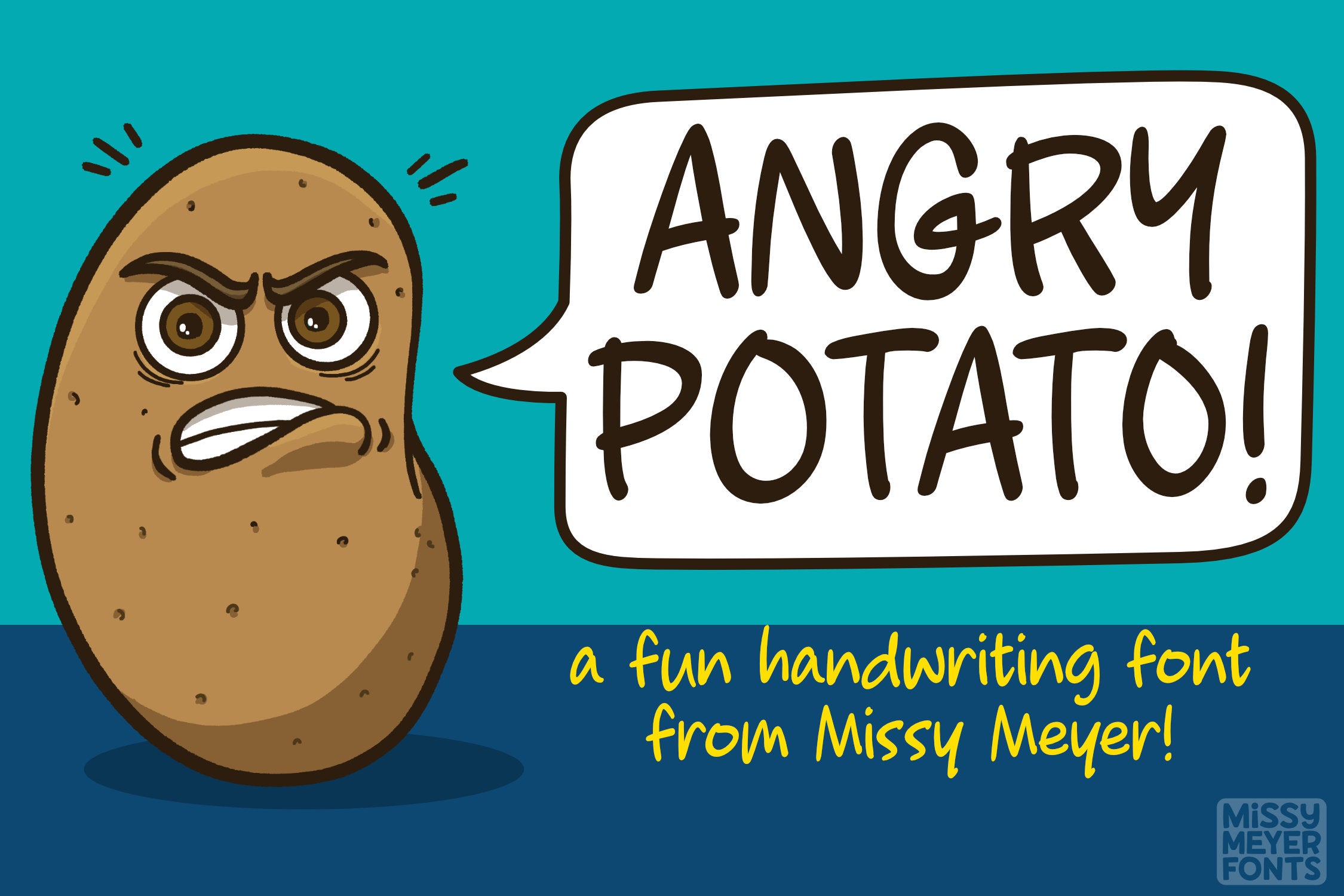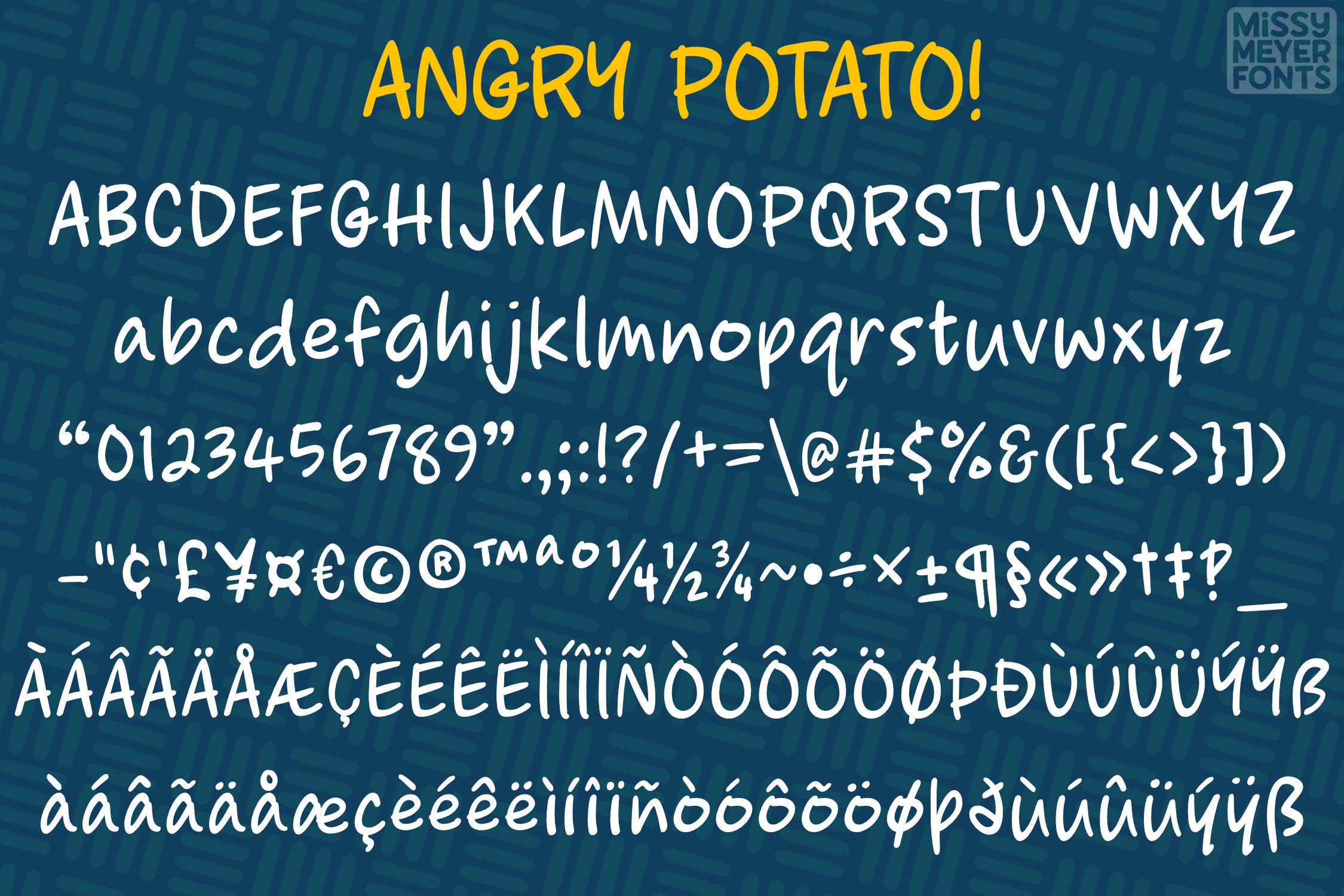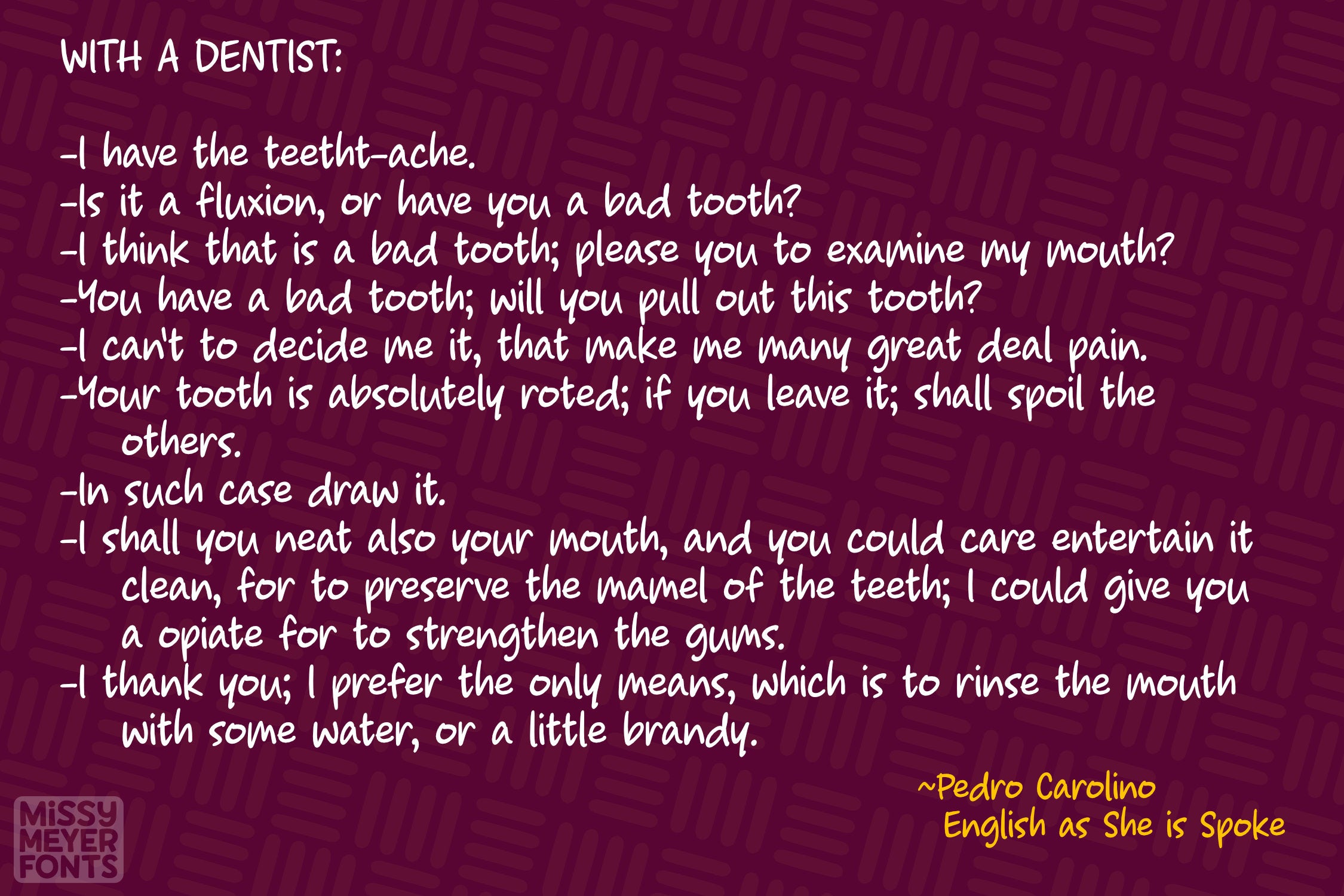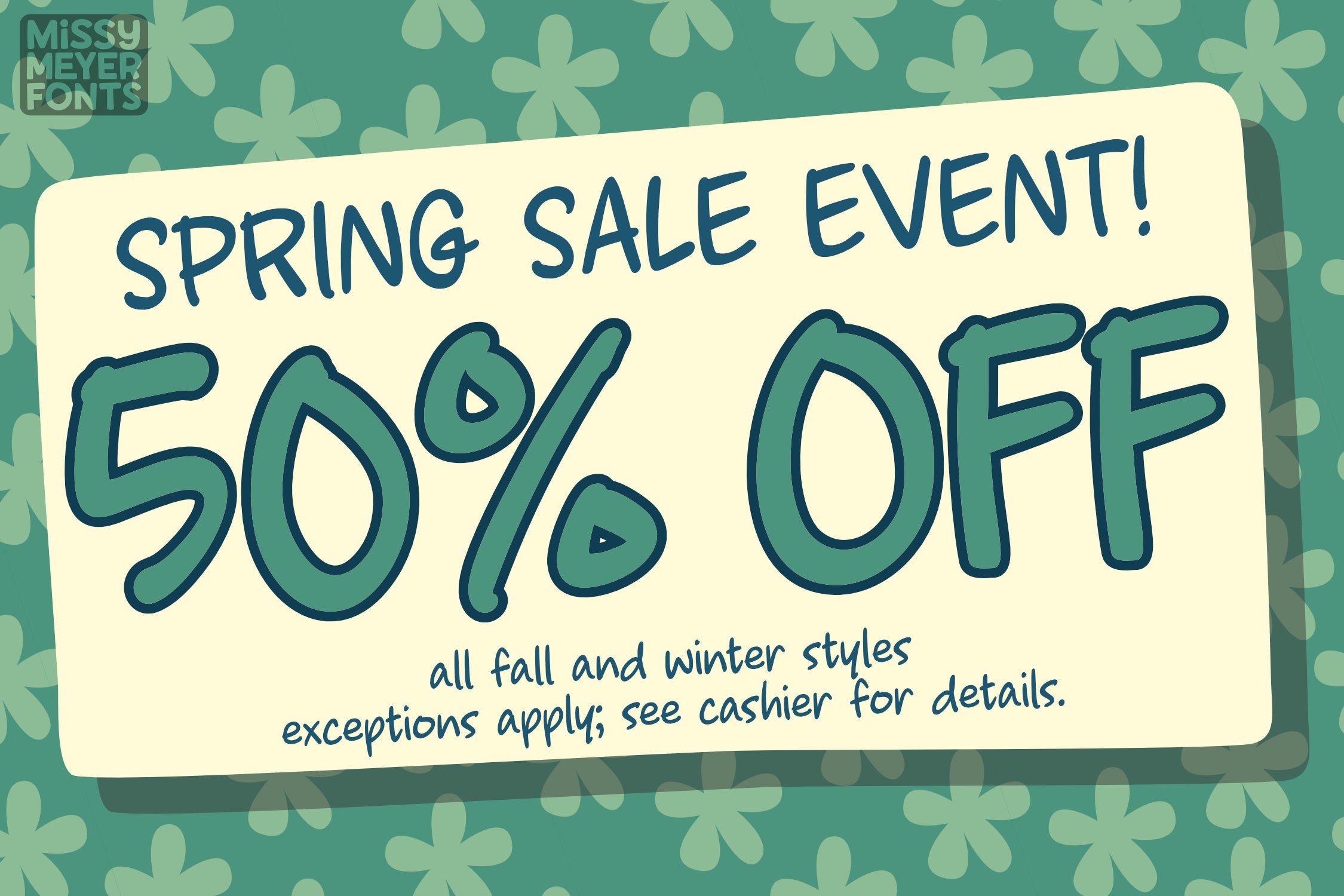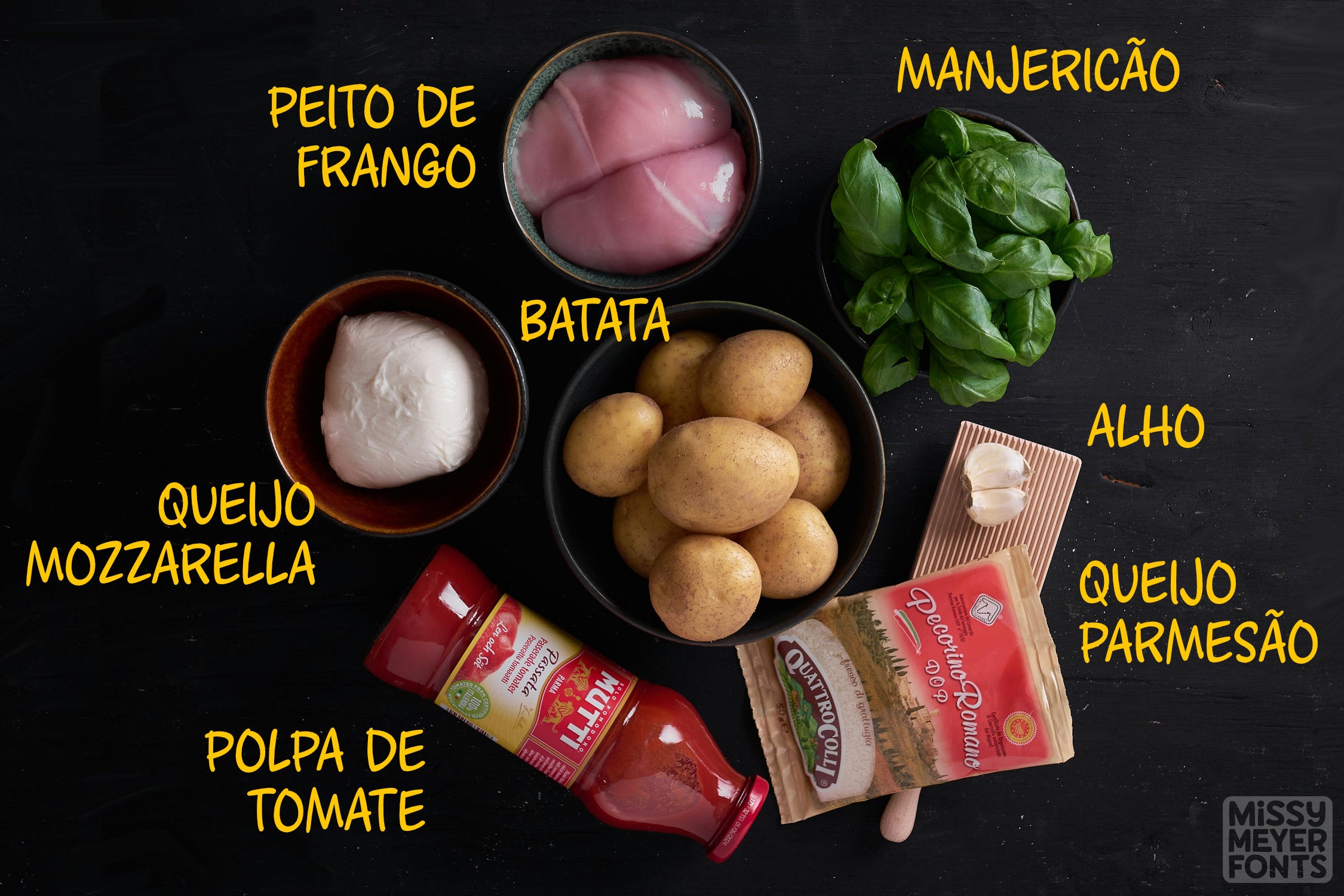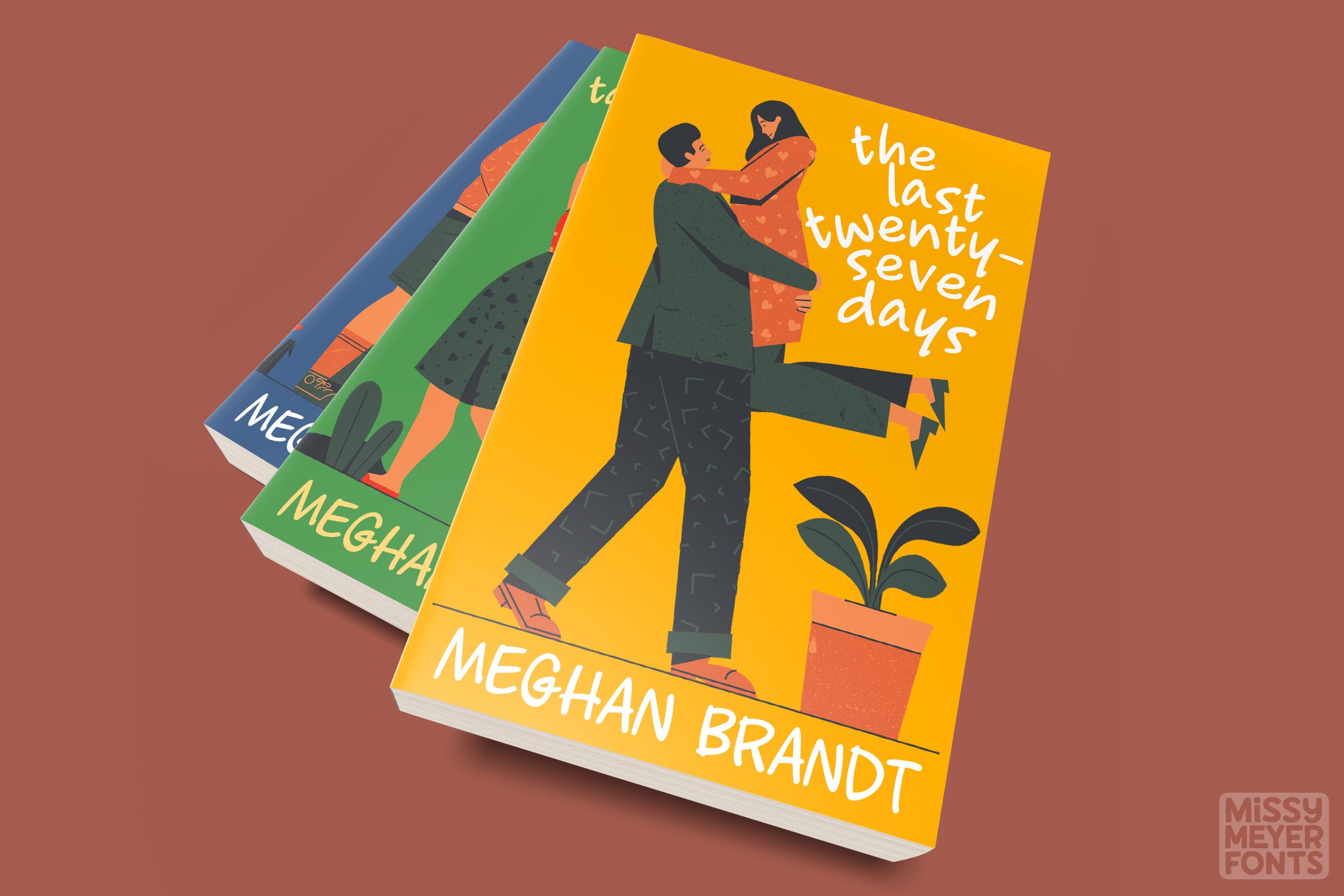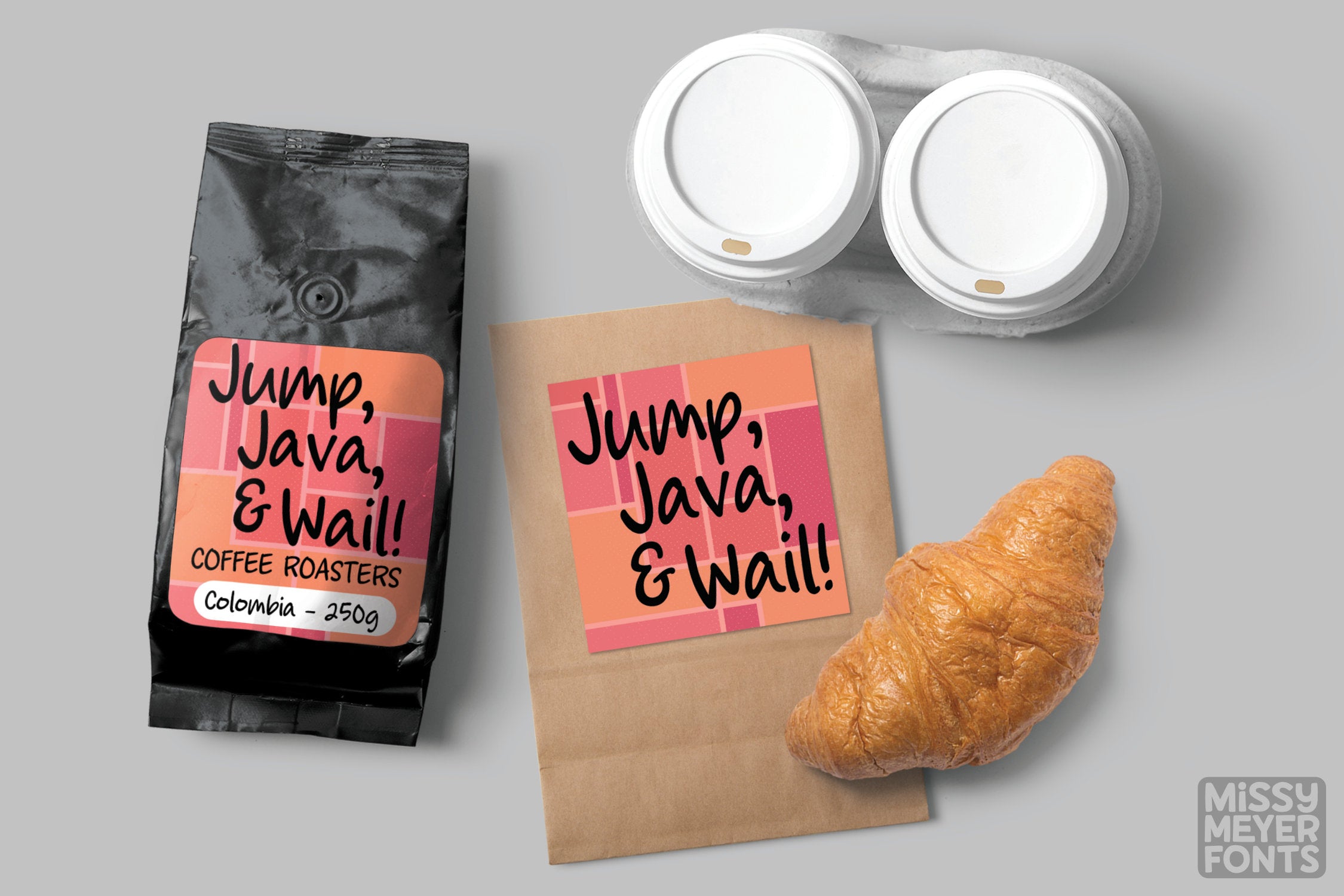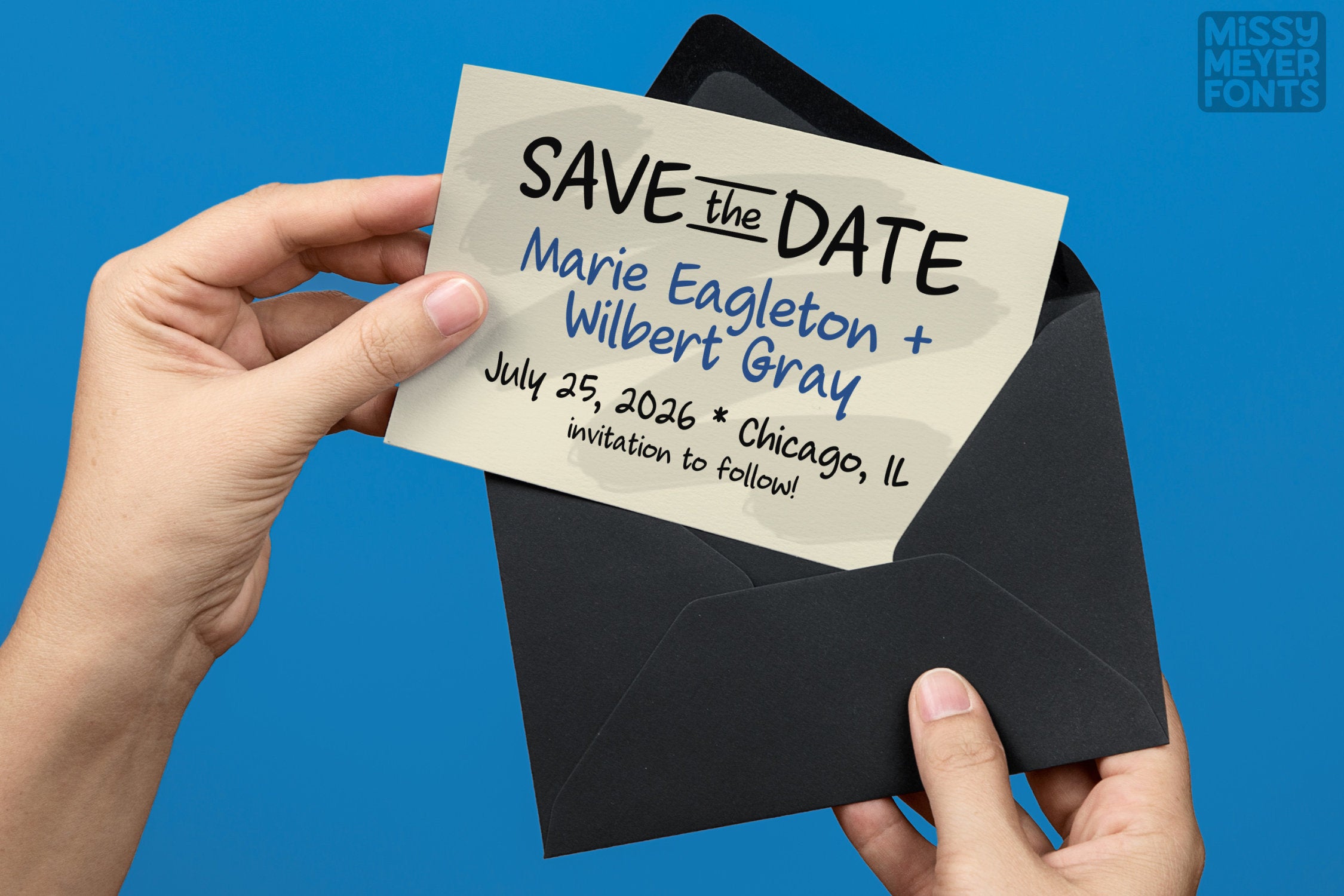
A lot of the handwriting-style fonts I make are more on the childlike side. For this one, I wanted to go a bit more adult, but still keep the fun vibe. And so, here's Angry Potato! It's a casual handwriting font with both uppercase and lowercase; a bit on the taller and narrower side, with a slightly varying stroke weight.
Smooth for cutting, stylish for print, it's a font that can do it all: logos and branding, packaging, fun designs on shirts or mugs, digital designs, social media, book titles, videos, games, and more!
Angry Potato includes the full Basic Latin character set and the full Latin-1 Supplement set, plus additional characters so that it can support not only English, but a number of other languages including French, Spanish, Italian, German, Portuguese, and more!